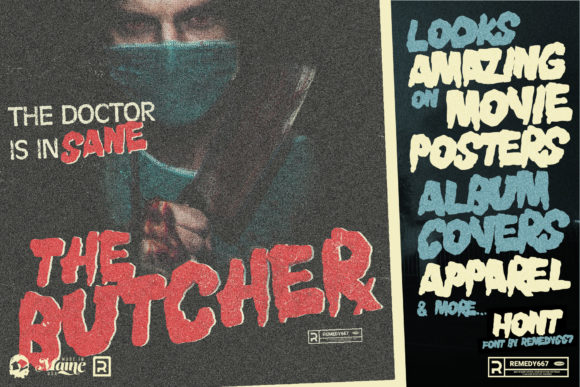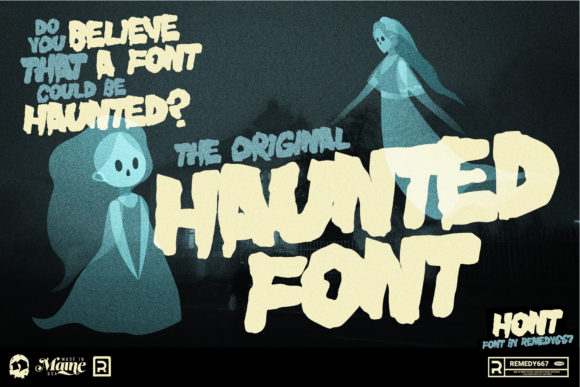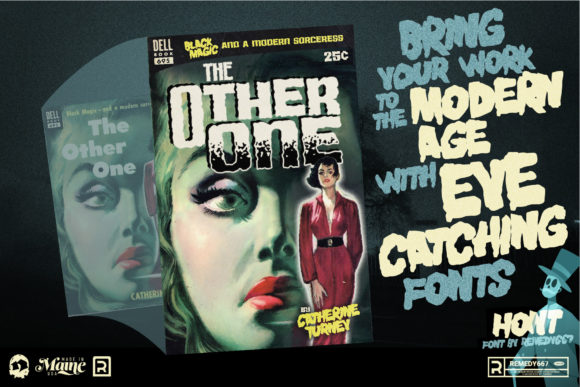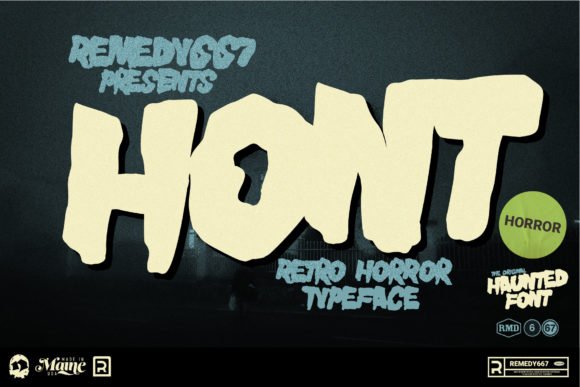
Introduction to Hont Font
Hont is a cool, thick lettered and paint brushed display font.
It is suitable for any branding project like logos, t-shirt printing, sport designs, and more It will look outstanding in a wide range of contexts.
Hont Font offers exceptional quality and versatility, making it a valuable addition to your design toolkit. Whether you’re creating for personal projects or commercial use, Hont Font delivers professional results.